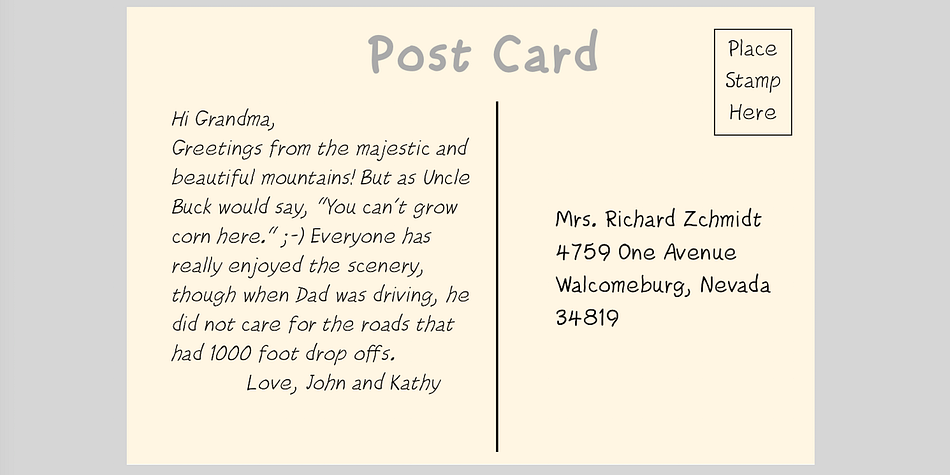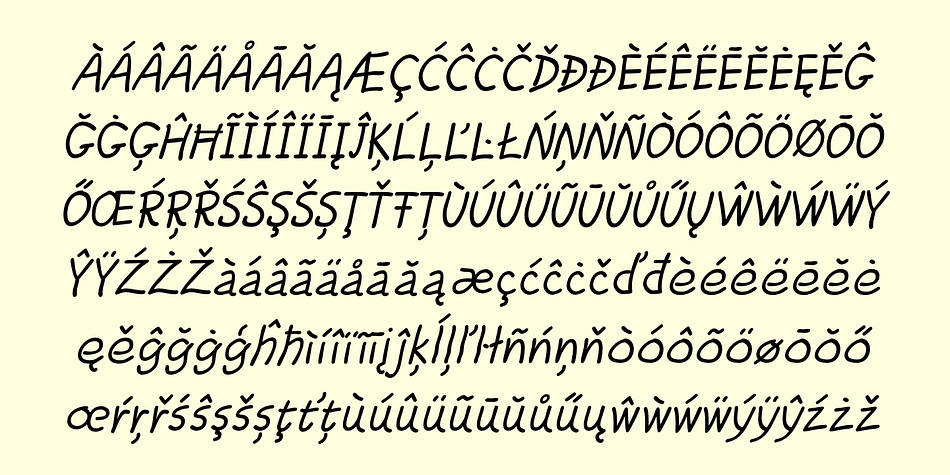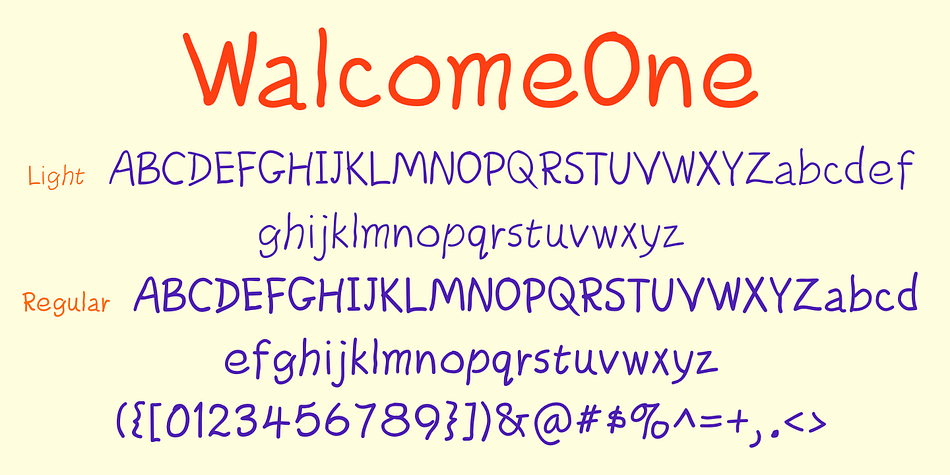
Designed by Robert Schenk, WalcomeOne is a hand drawn font family. This typeface has eight styles and was published by Ingrimayne Type.
WalcomeOne simulates sloppy, messy hand printing. Despite being irregular and childlike, it is quite legible even at small sizes. It comes in four weights, each with an oblique style.
Designer | Robert Schenk |